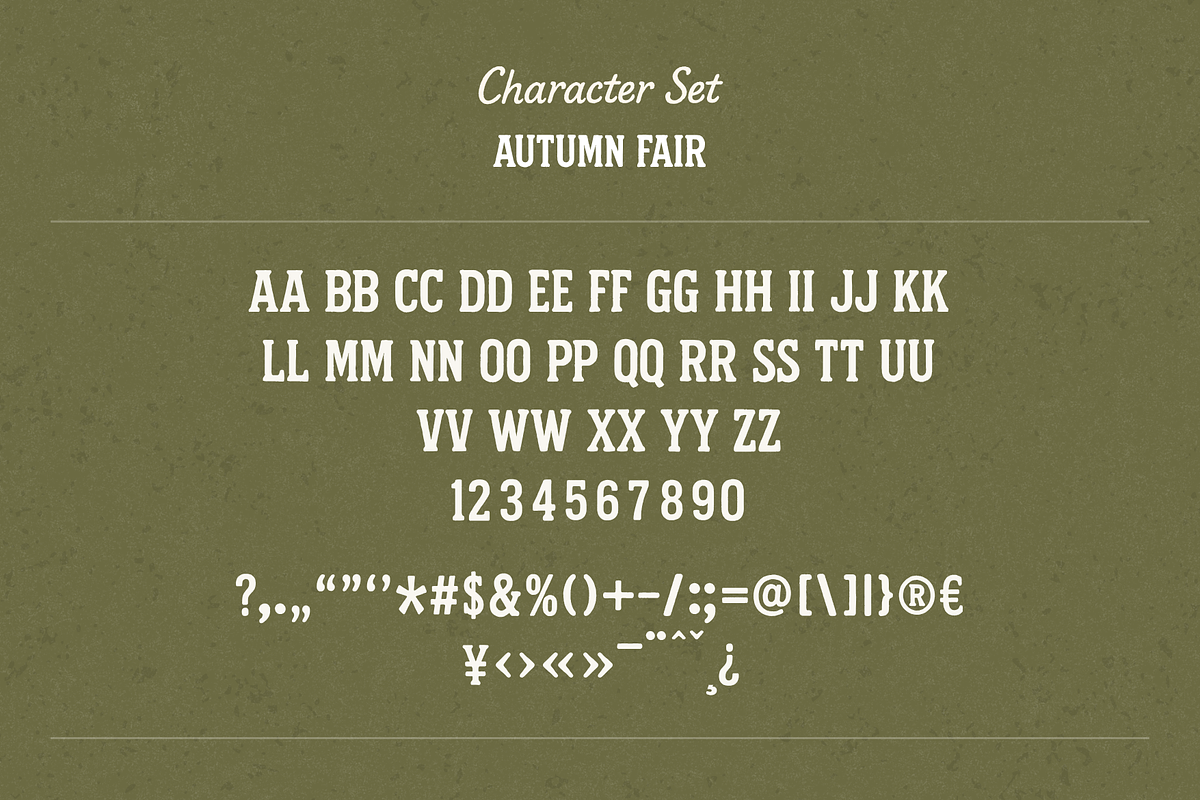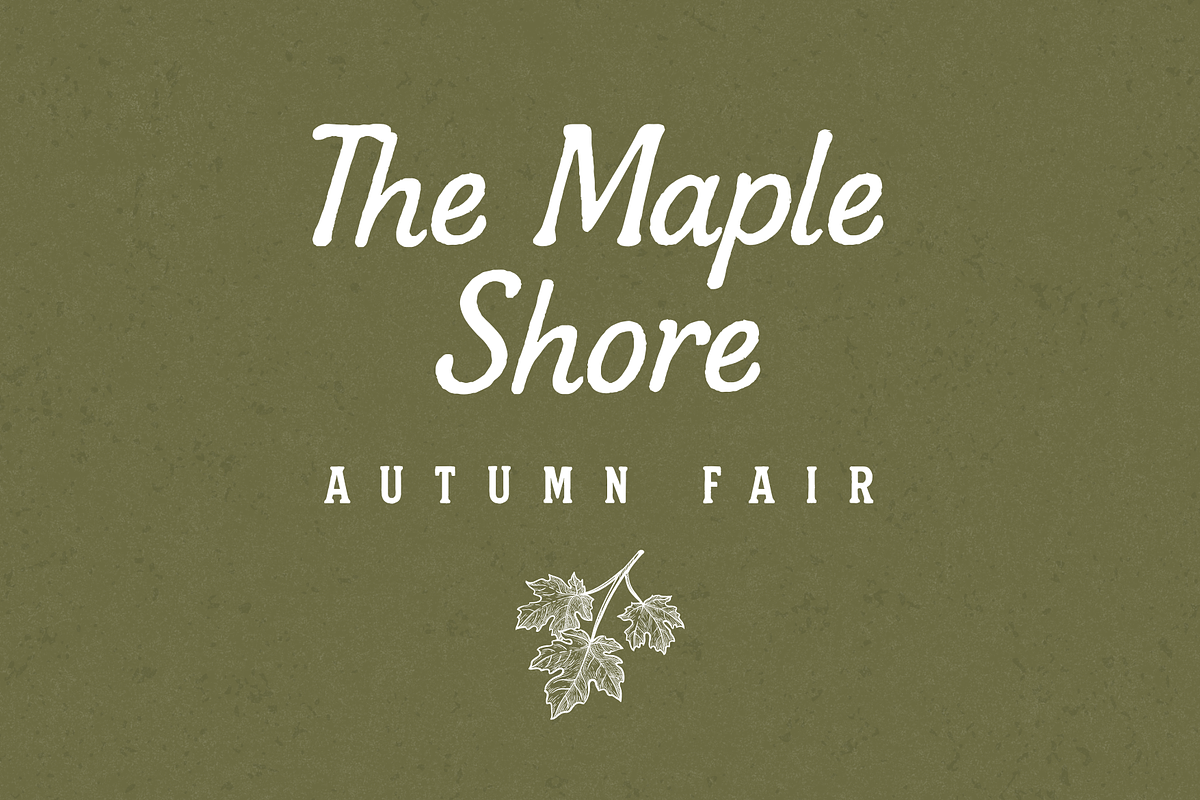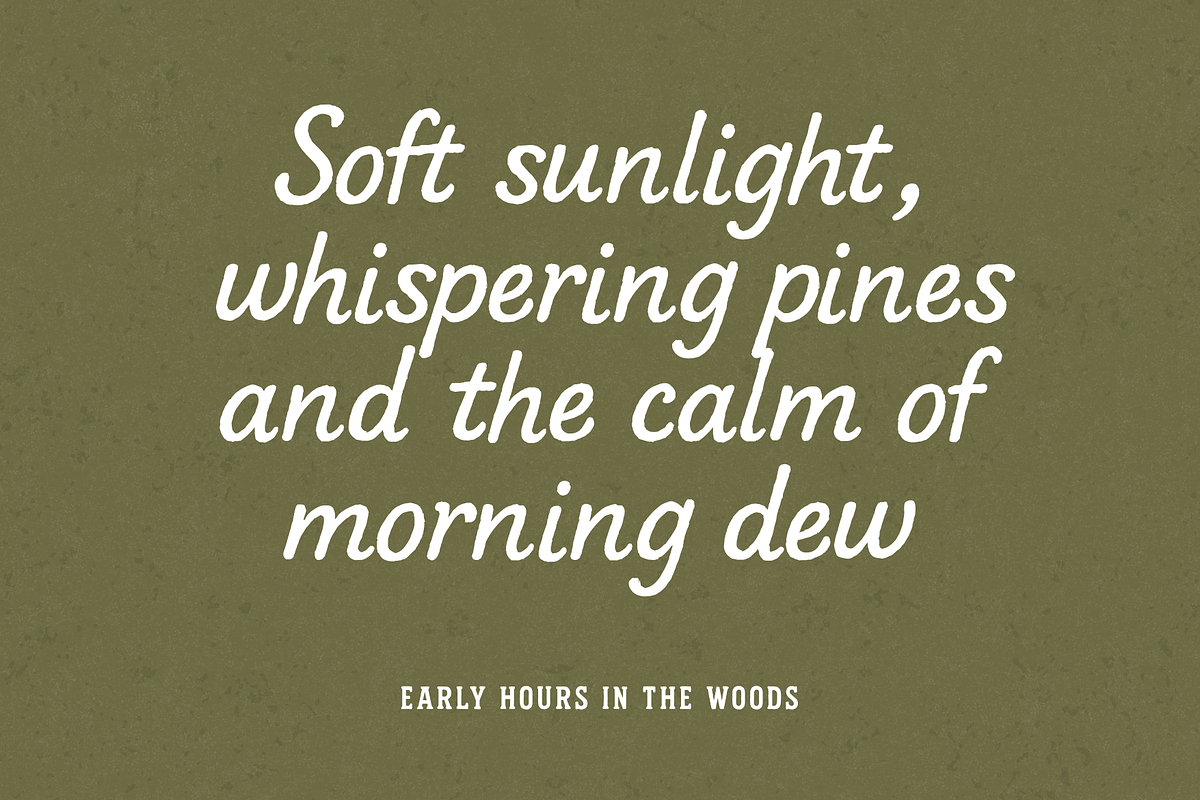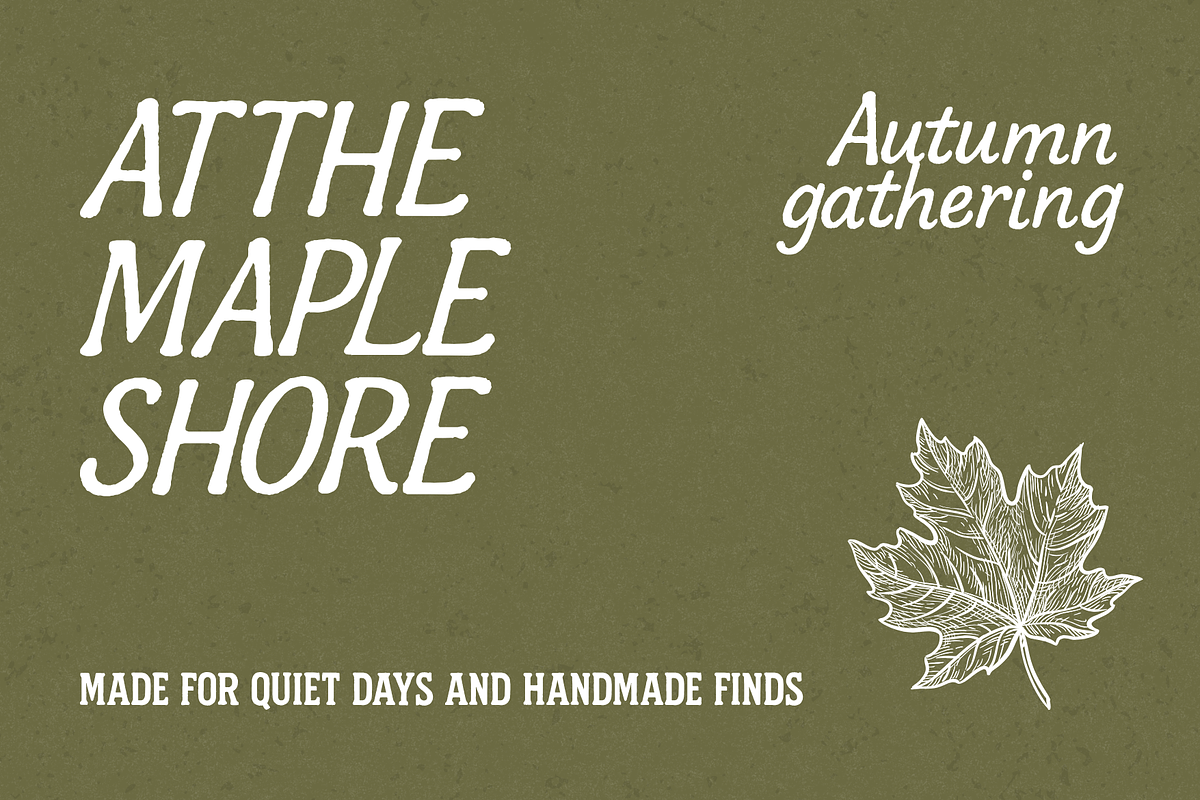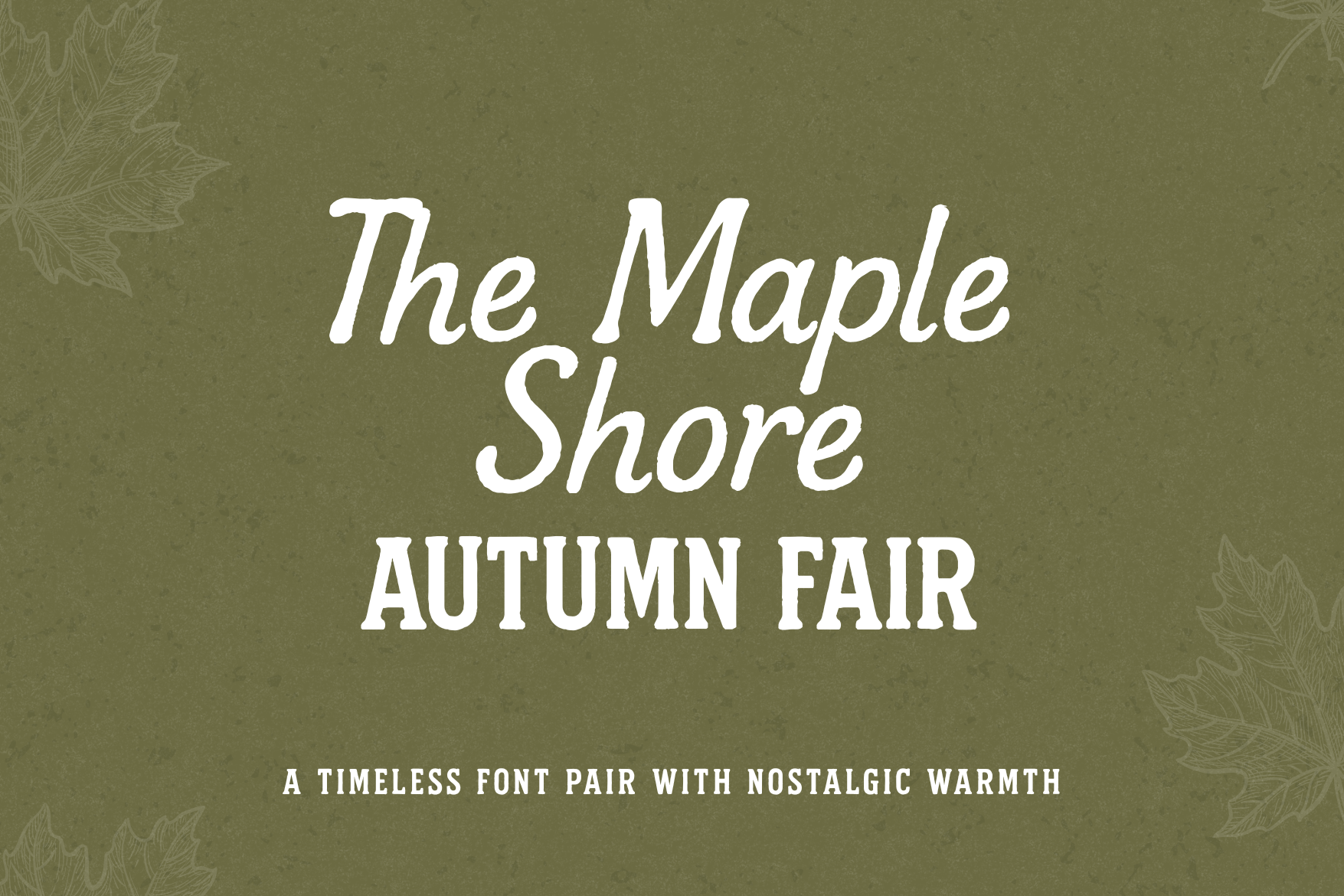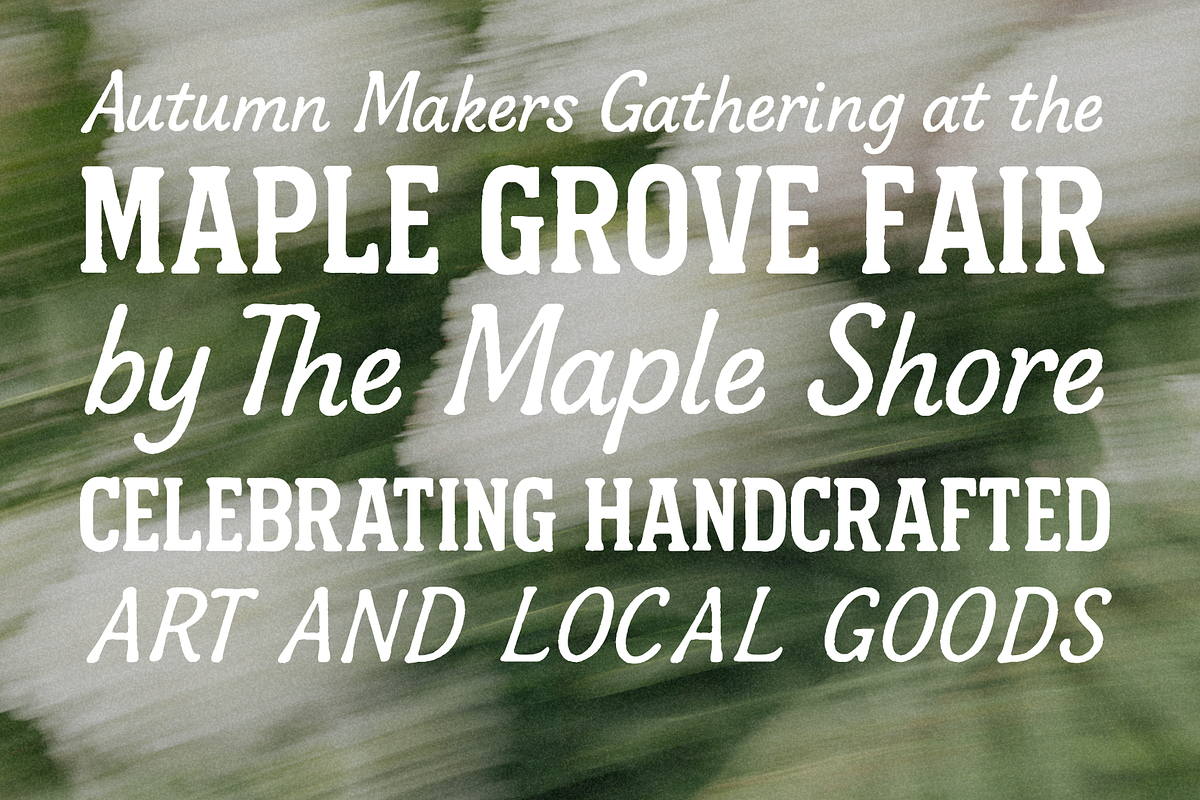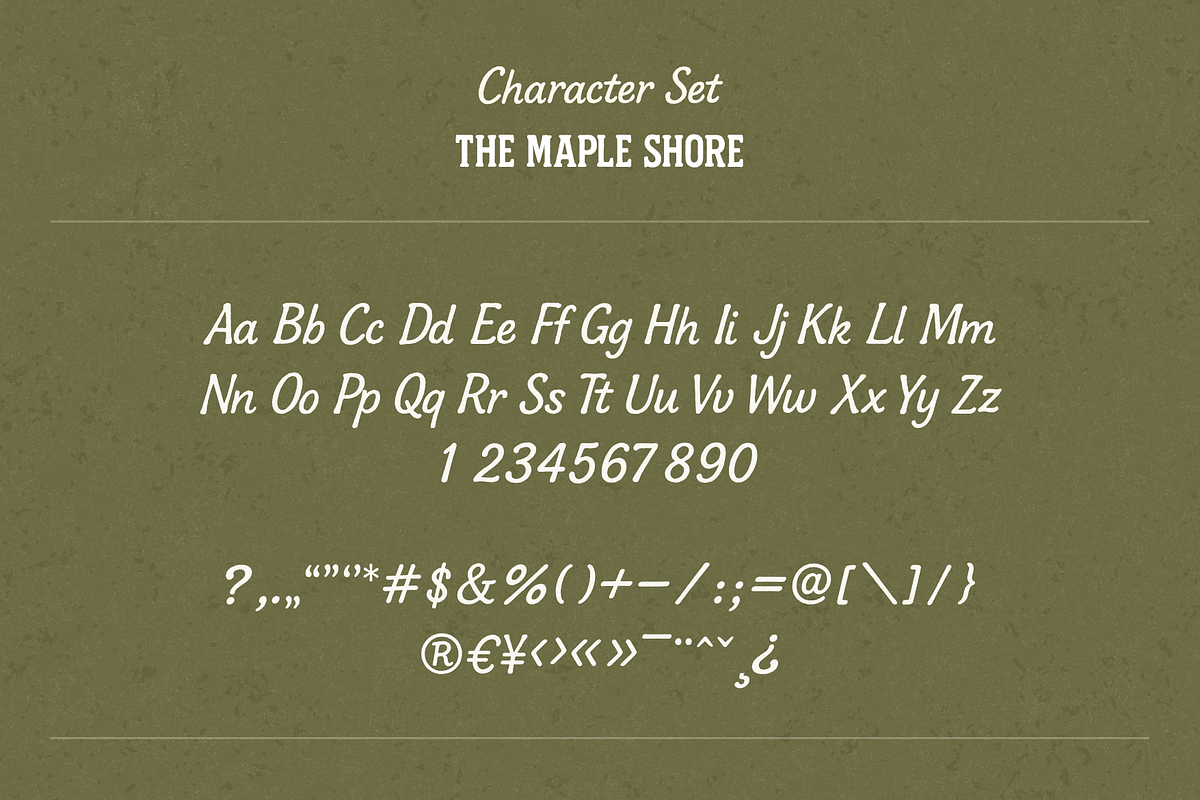
The Maple Shore – Font Duo
The Maple Shore – A Timeless Font Pair with Nostalgic Warmth
Embrace the charm of quiet mornings, golden leaves, and hand-crafted simplicity with The Maple Shore, a warm and timeless font duo that brings the spirit of autumn to your designs.
This font pair includes: The Maple Shore Script — a softly slanted, hand-drawn cursive with organic flow and nostalgic elegance. Autumn Fair Serif — a sturdy vintage serif with rustic curves and classic character spacing, perfect for bold headlines and signage.
Together, they evoke the feeling of cozy gatherings, local fairs, and slow weekends in the woods — ideal for branding, packaging, invitations, and heartfelt storytelling.
- Two distinct yet harmonious fonts (Script + Serif)
- Perfect for logos, product packaging, greeting cards, book covers, posters, and more
Recommended for: Cafés & bakeries • Organic brands • Handcrafted goods • Vintage packaging • Editorial titles • Seasonal campaigns
A font duo made for quiet days, warm hearts, and handmade finds.